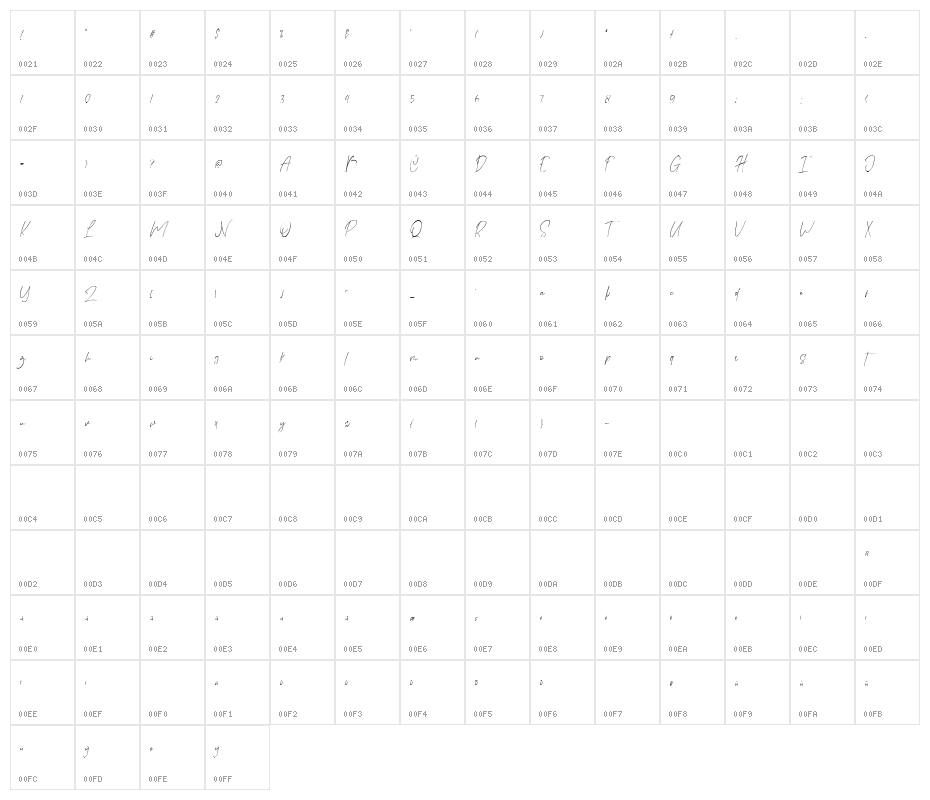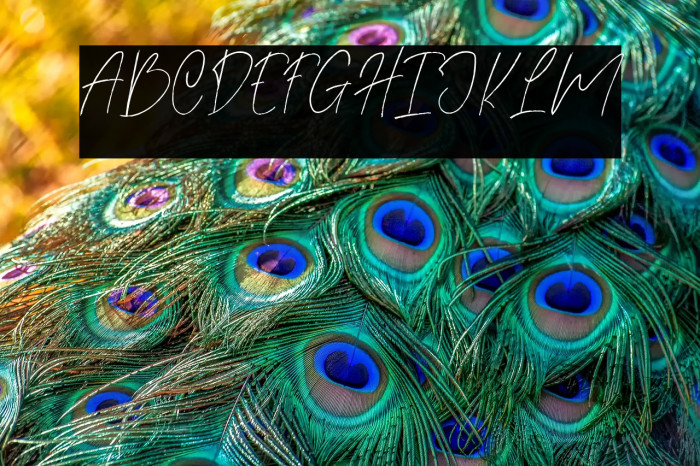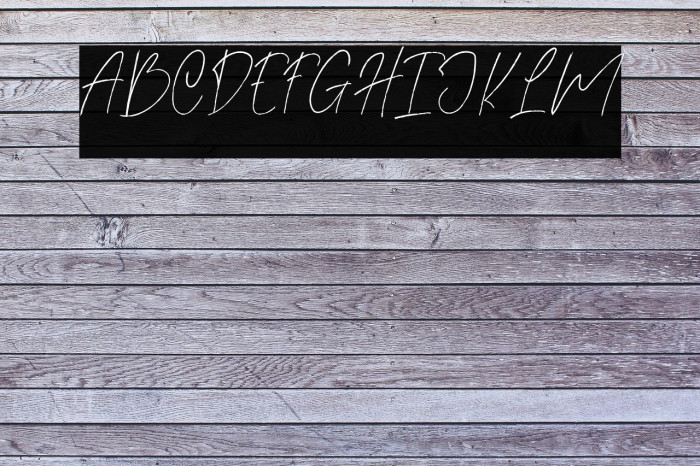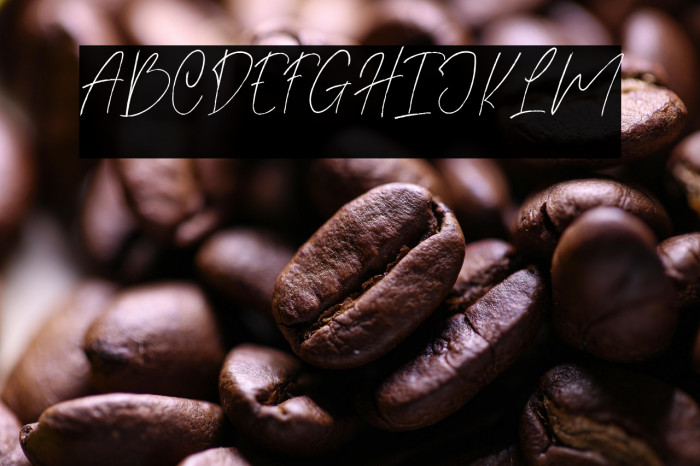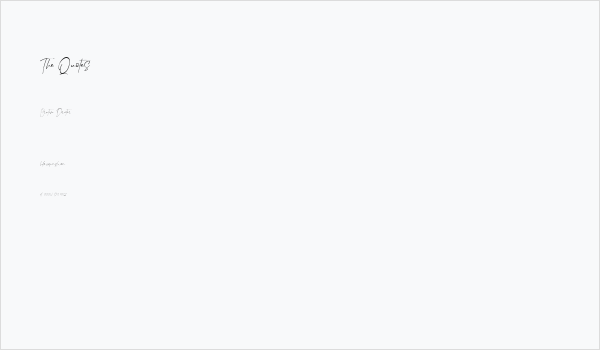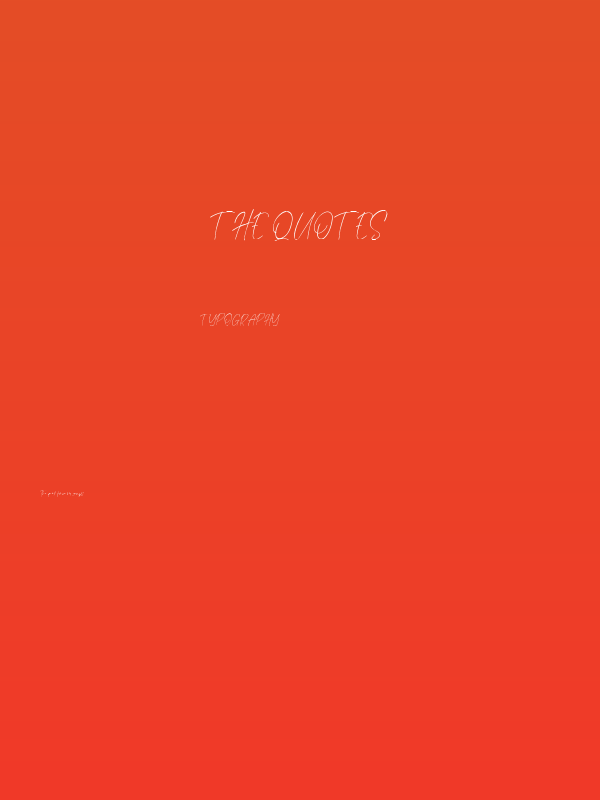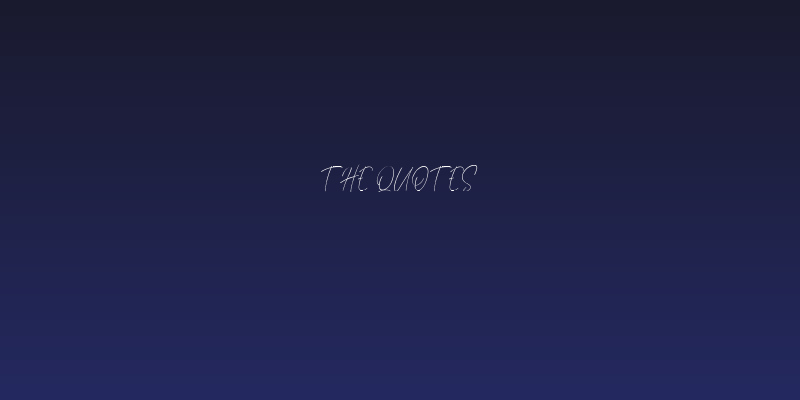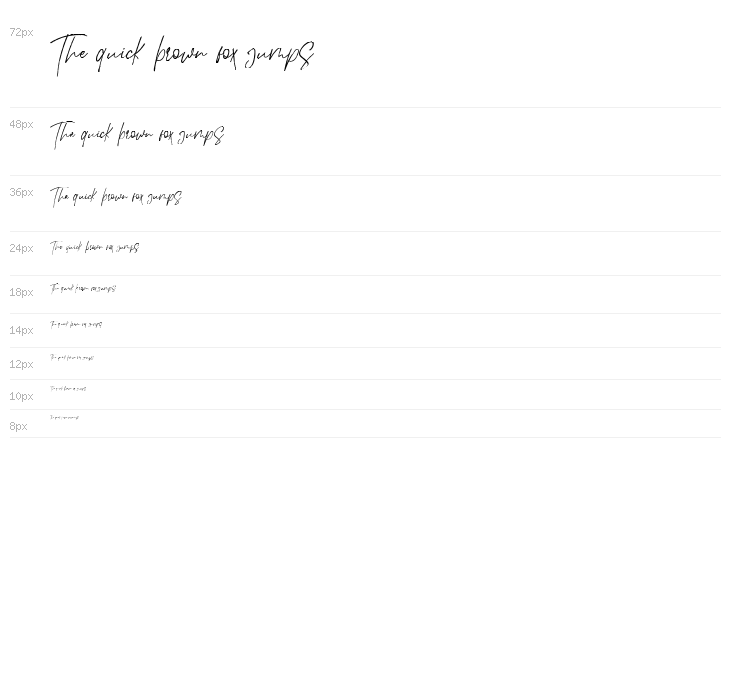
The Quotes Font
The Quotes Description
This font features a handwritten, cursive style with a flowing and elegant appearance. The letters are connected with smooth, sweeping lines, giving it a personal and artistic touch. The uppercase letters are tall and slightly slanted, while the lowercase letters maintain a consistent flow, enhancing readability. The numbers and special characters are crafted with the same attention to detail, ensuring uniformity across all glyphs. The overall design is delicate yet expressive, making it suitable for creative and personal projects.
| Style | Script |